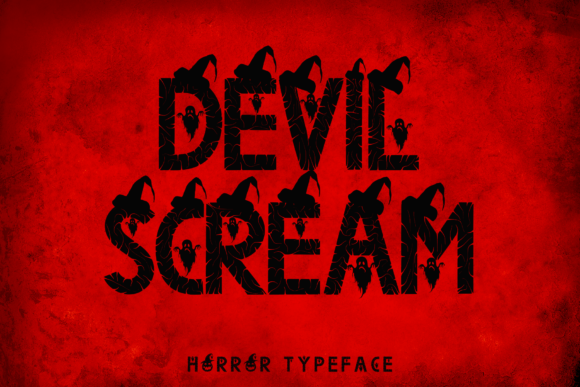
Venture into the realm of captivating designs with Devil Scream, a decorative font that will ignite your creativity and leave a lasting impression on your audience. This font is not just a collection of letters; it's a gateway to a world of limitless possibilities, where your imagination takes center stage.
From bold headlines that demand attention to eye-catching logos that linger in the memory, Devil Scream is the perfect choice for those seeking to make a statement. Its sharp angles and dynamic curves create a visual symphony that commands attention, while its unique character adds a touch of intrigue and mystery to your designs.
Unleash the power of Devil Scream in your banner ads and witness the surge in engagement and conversions. This font has a knack for grabbing eyeballs and driving clicks, making it an invaluable tool for businesses looking to amplify their online presence.
But Devil Scream's versatility extends far beyond banner ads. It's equally adept at transforming social media posts, flyers, posters, and even product packaging into captivating works of art. Its ability to seamlessly blend with various design aesthetics makes it a true all-rounder, capable of elevating any project you undertake.
Immerse yourself in the world of Devil Scream and discover a font that goes beyond mere aesthetics. It's a font that evokes emotions, captivates imaginations, and leaves an indelible mark on the minds of your audience. Let Devil Scream be your creative companion, guiding you towards design excellence and unforgettable experiences.